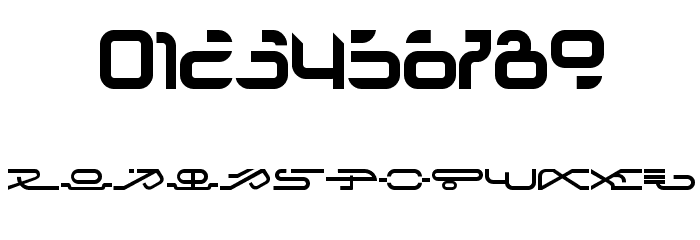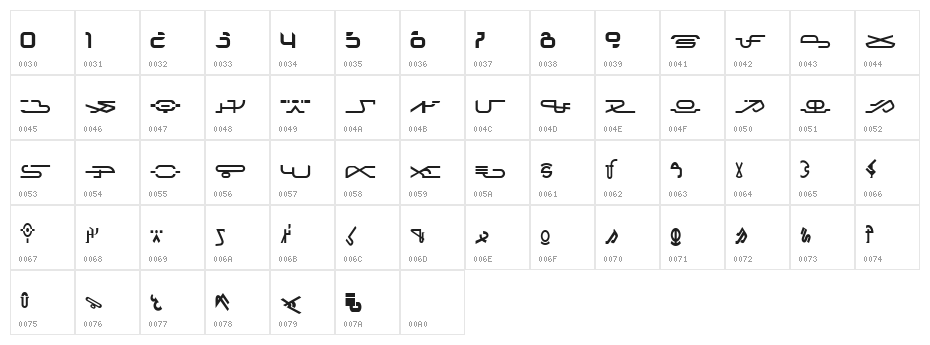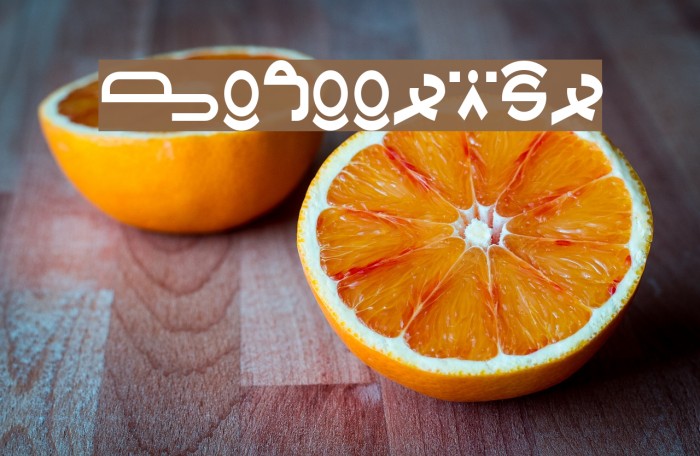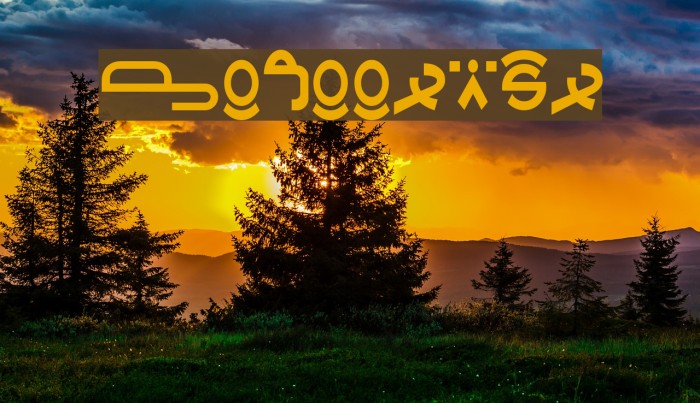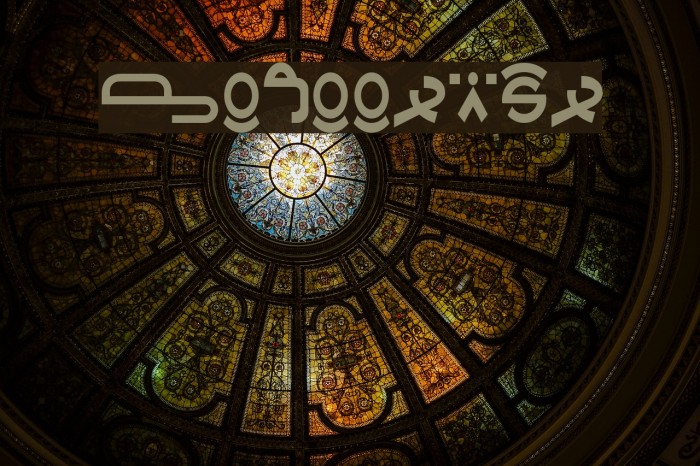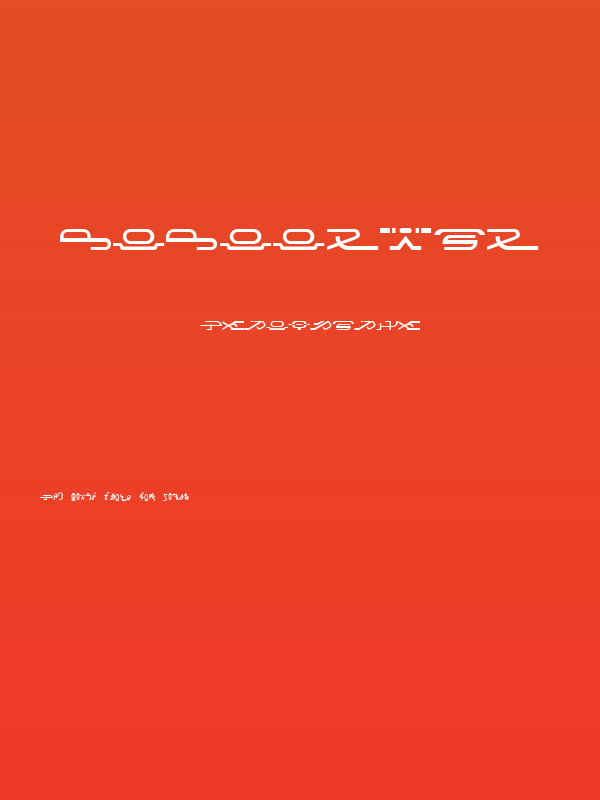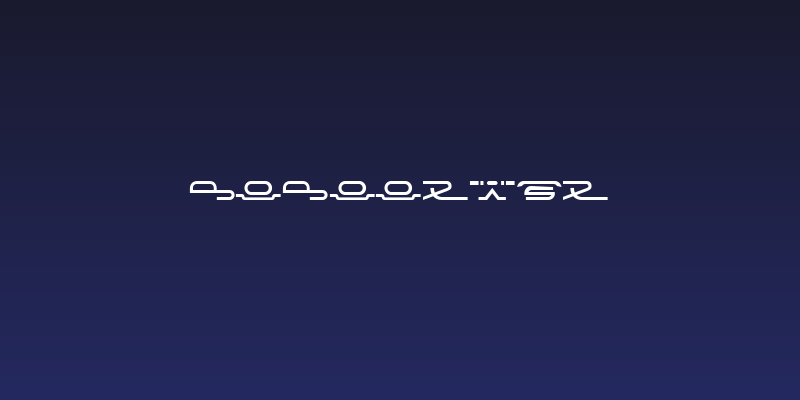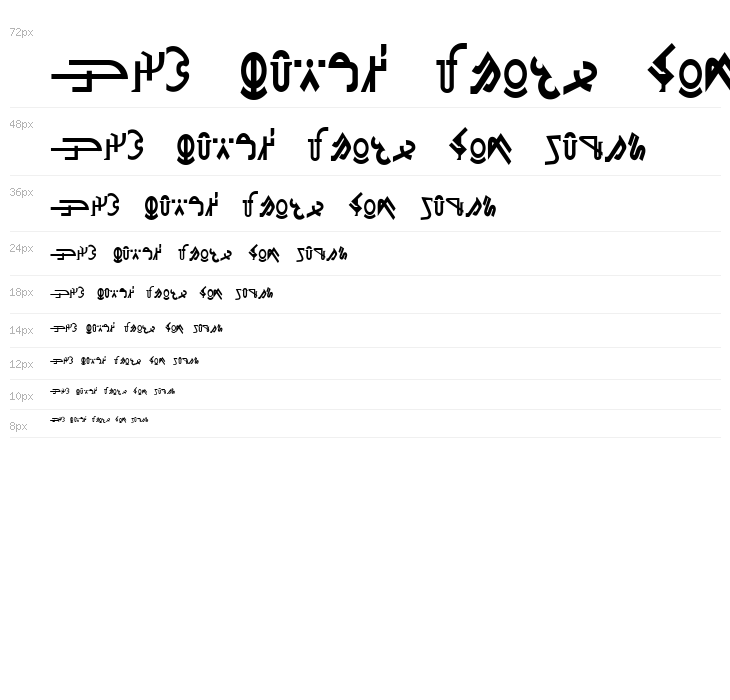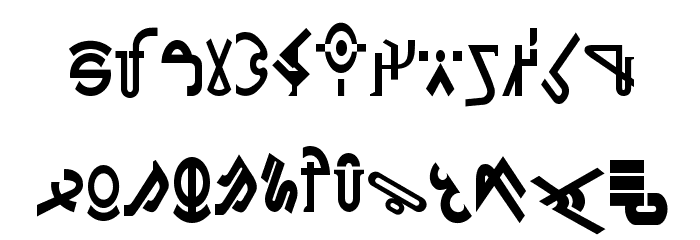
Cocoonian Font
Cocoonian Description
This font features a highly decorative and abstract style, reminiscent of alien or futuristic scripts. The characters are composed of intricate shapes and lines, creating a sense of mystery and otherworldliness. The design includes a mix of sharp angles and smooth curves, giving it a dynamic and complex appearance. The numbers are bold and geometric, maintaining the overall theme of the font. This font is not suitable for body text due to its complexity but can be an excellent choice for creative projects that require a unique and eye-catching typeface.
| Overall Style | Futuristic, Abstract |
| Proposed Projects | Ideal for sci-fi themed designs, video game interfaces, movie posters, or any project requiring a unique and futuristic look. |